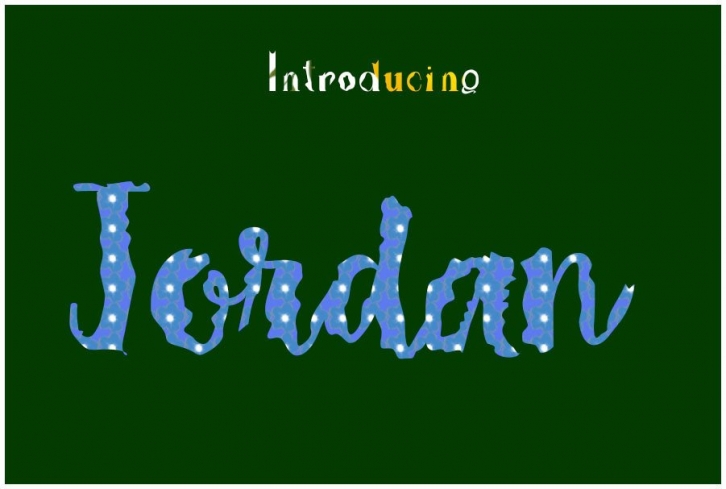
It’s a modern calligraphy typeface that combines the style of classic calligraphy with a modern style. This contemporary typeface comes with a dancing baseline, and a modern, elegant touch.